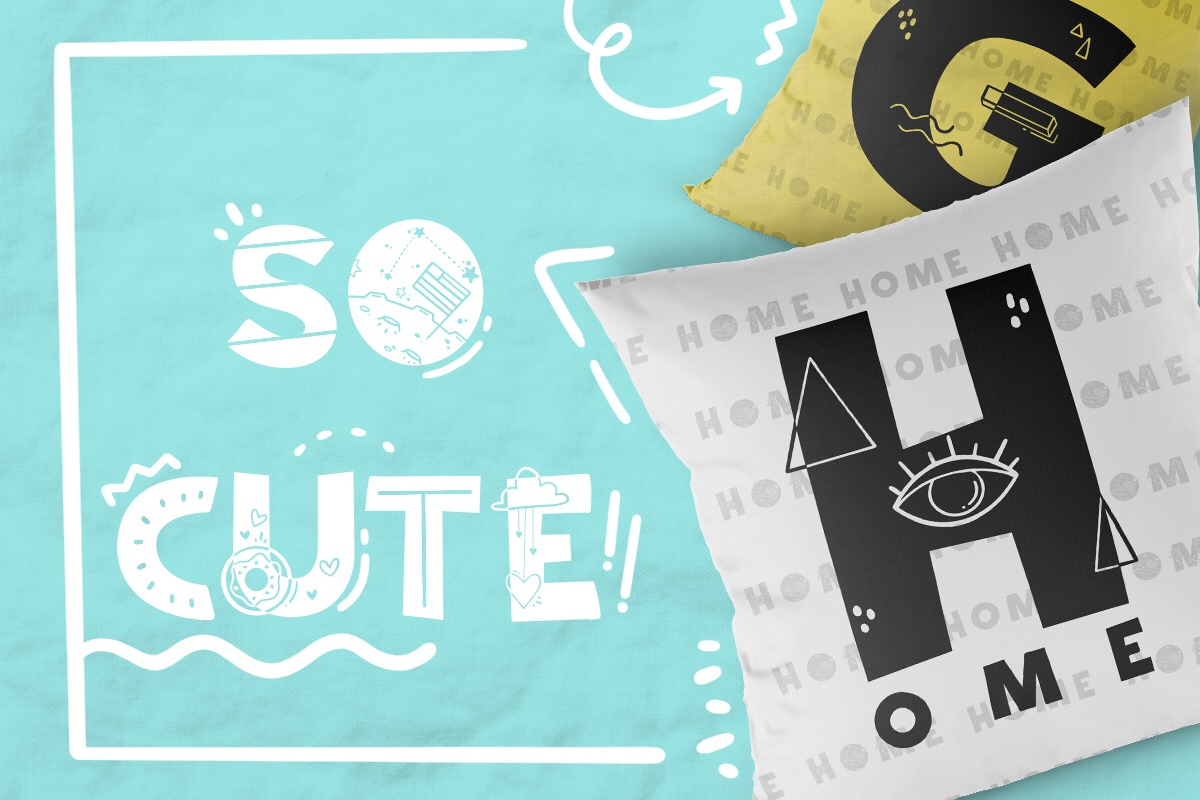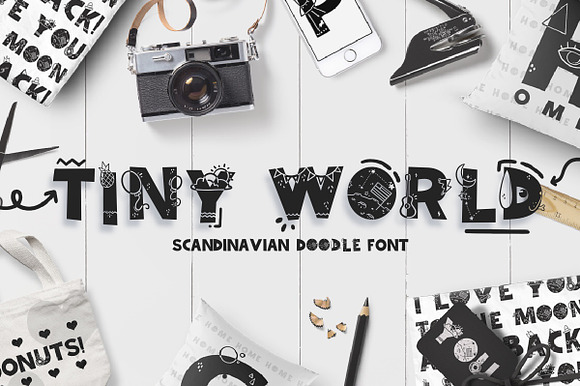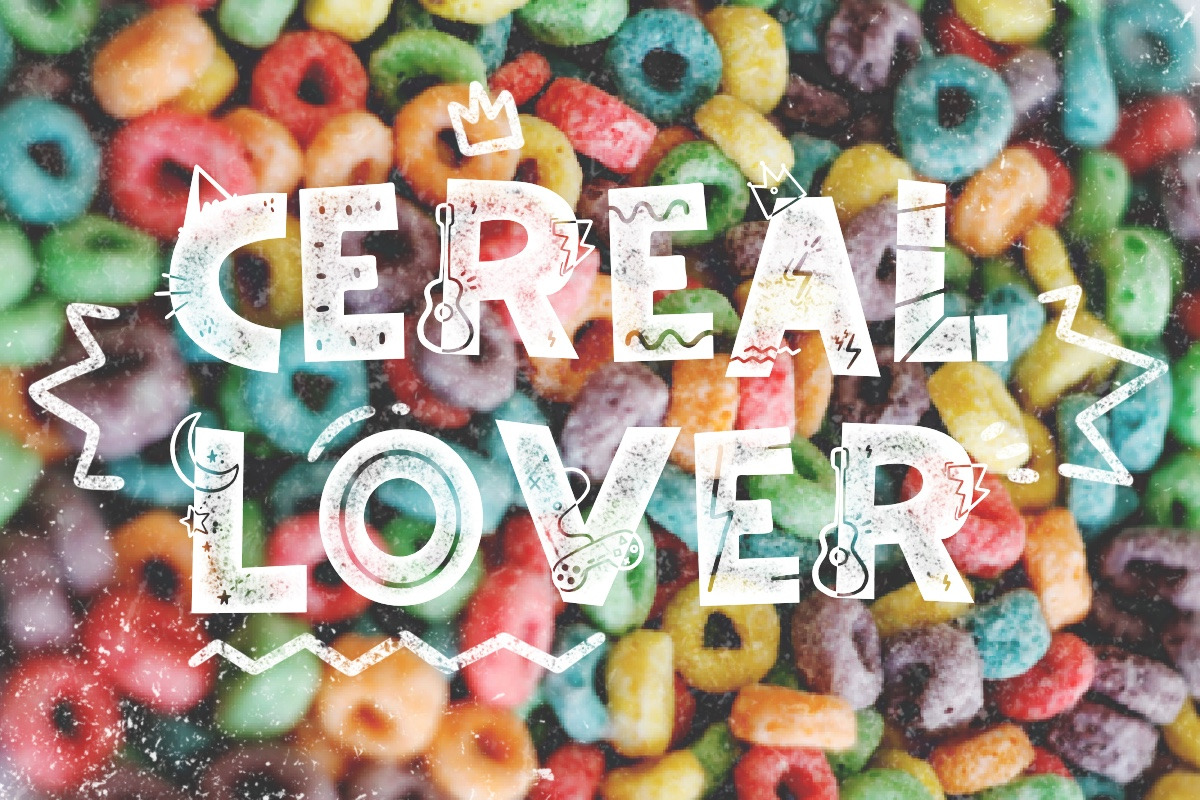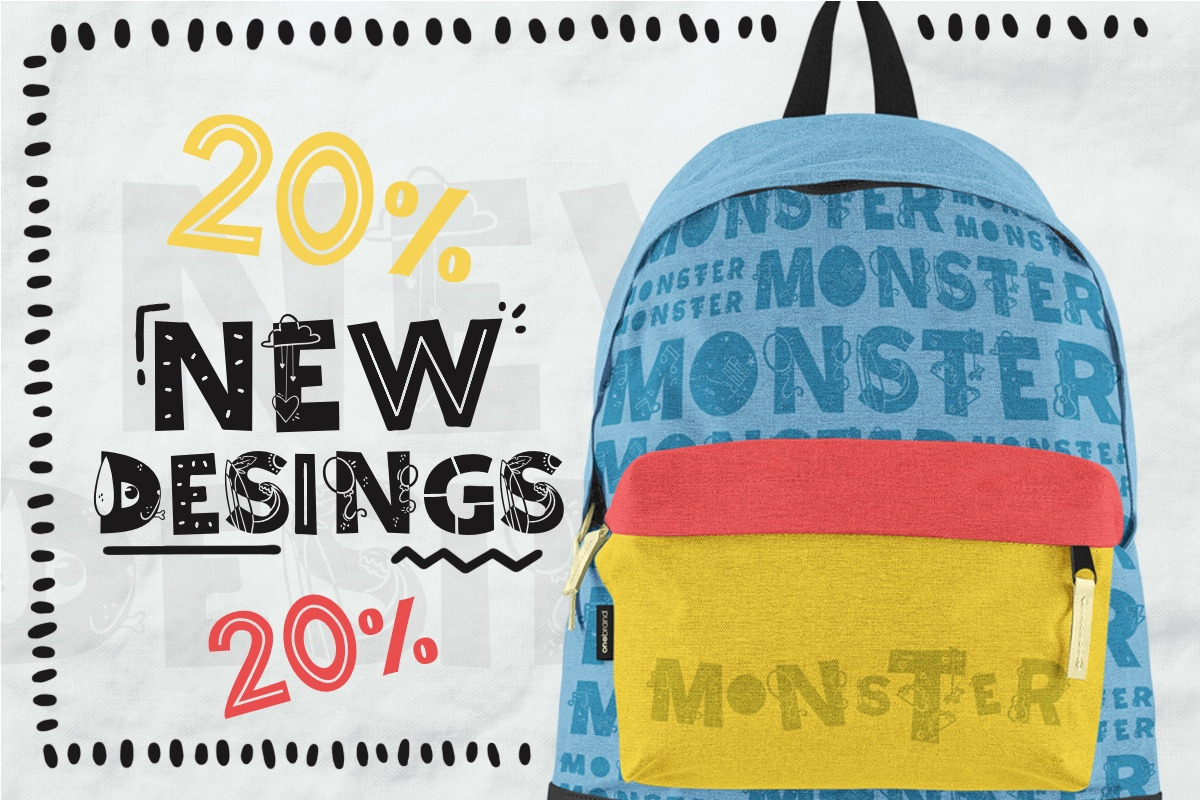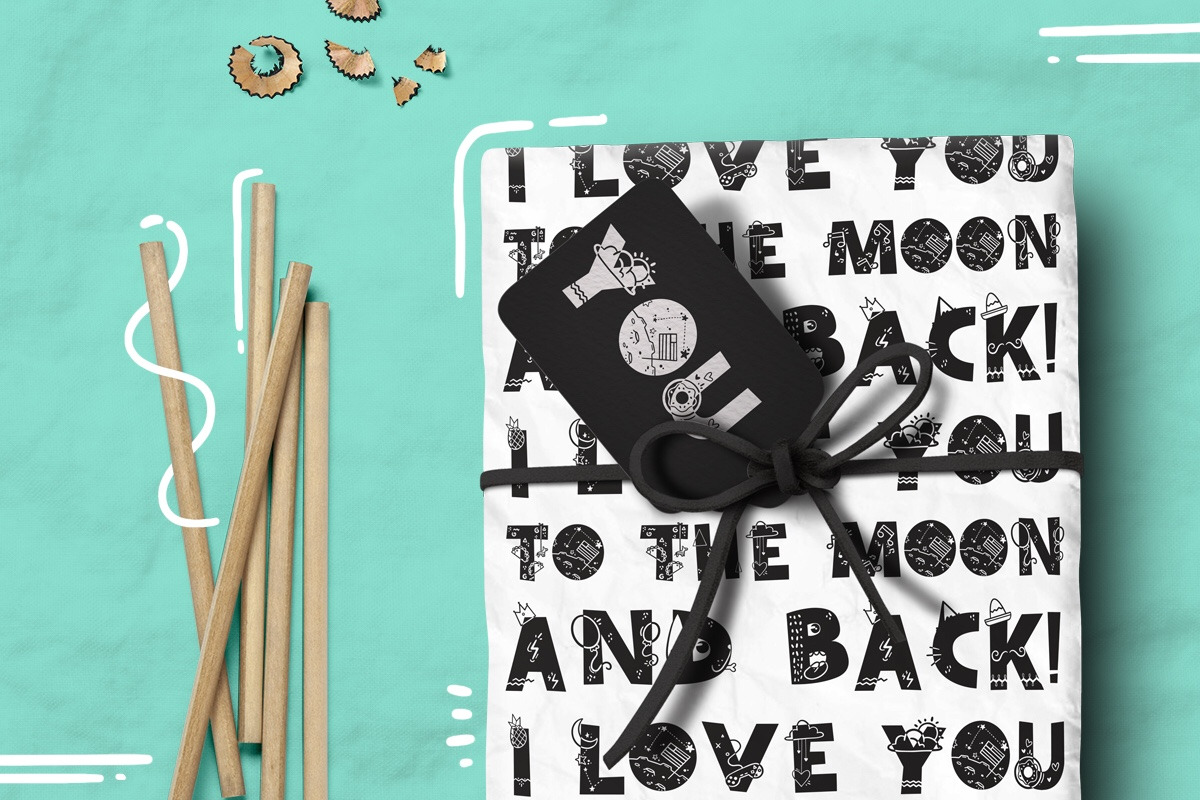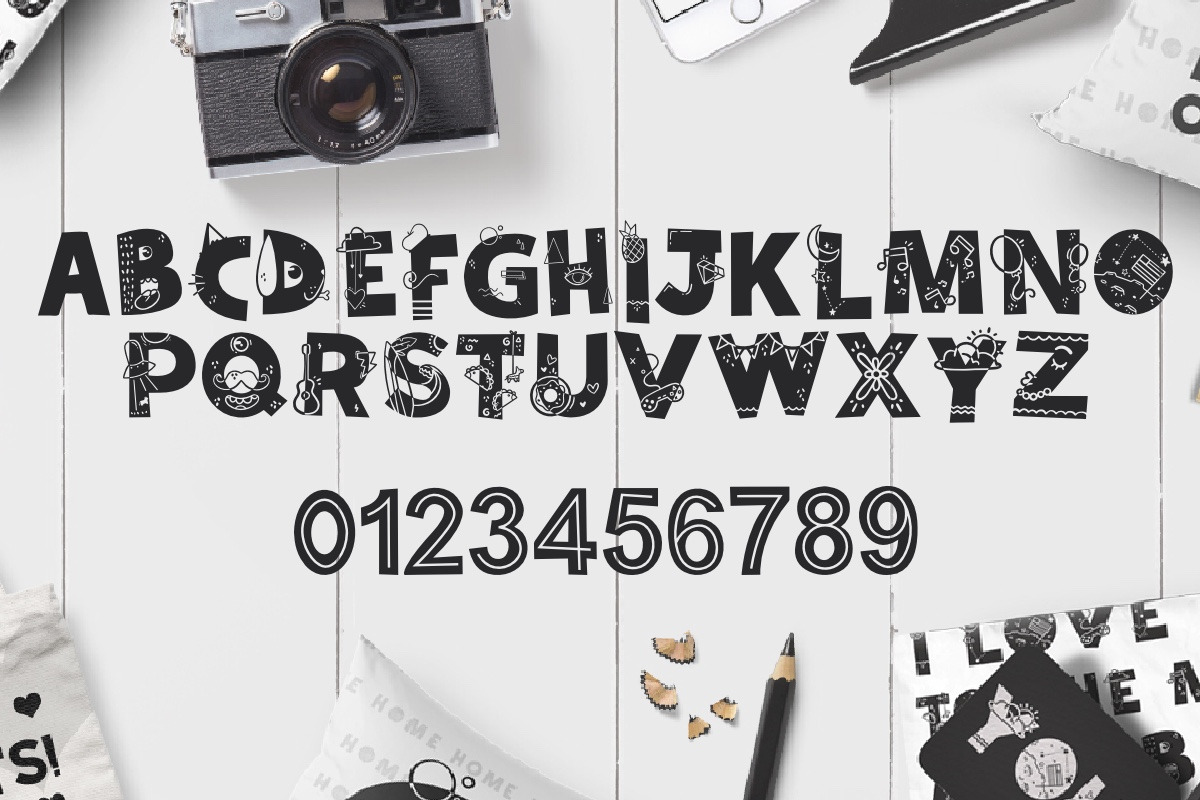
Tiny World! Scandinavian Doodle Font
Tiny World, Scandinavian Doodle Font
We all need some randomness in our life to enjoy the unexpected beautiful things! Let me present to you this cutie: Tiny World, a Scandinavian doodle font ready to join your awesome font collection. Incredibly playful, has a children energy that is perfect to design shirts, decor items and more!
Hey, get creative and design the most beautiful cards, shirts and presentations.
Go beyond the limits and design patterns.
Tiny World! Scandinavian Doodle Font by Andrea De Oliveira fits naturally into Branding, posters, packaging, typography.